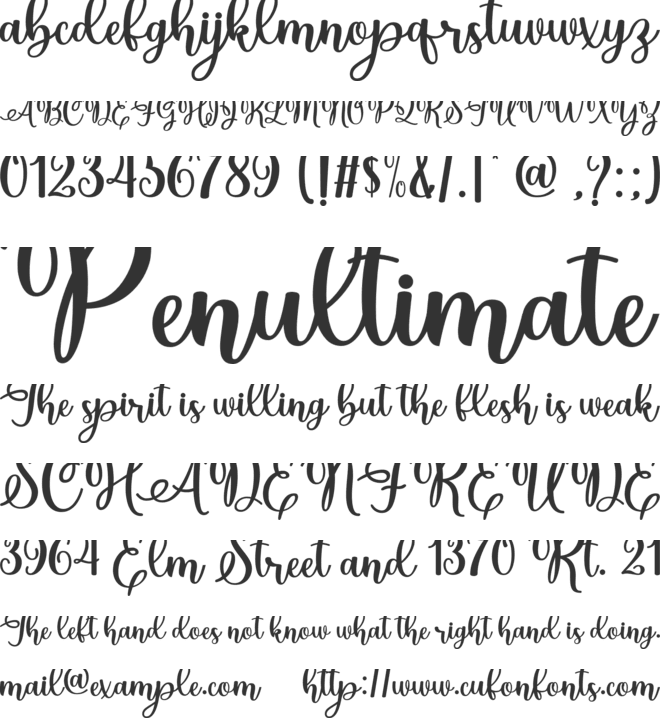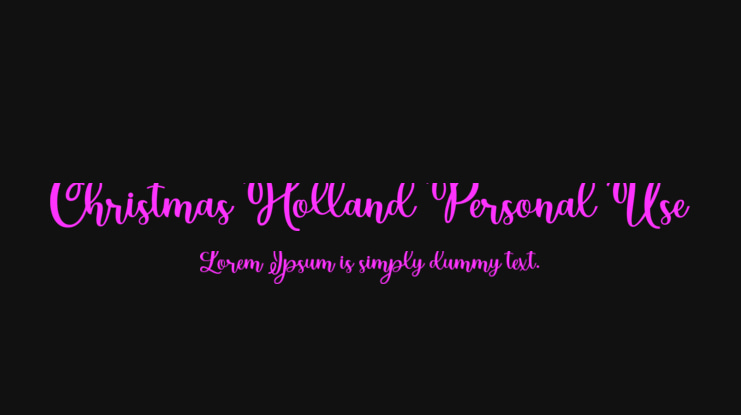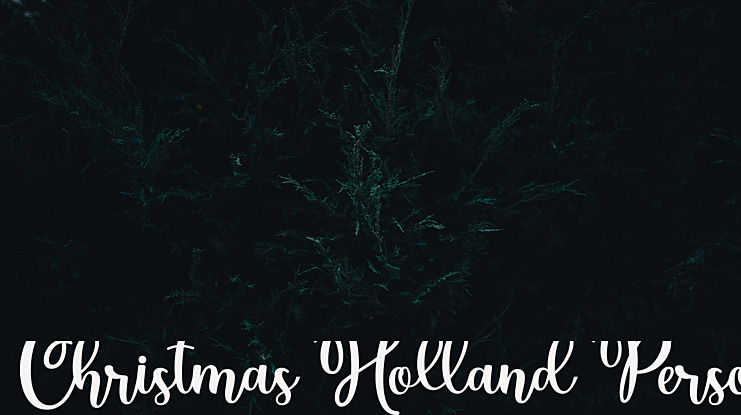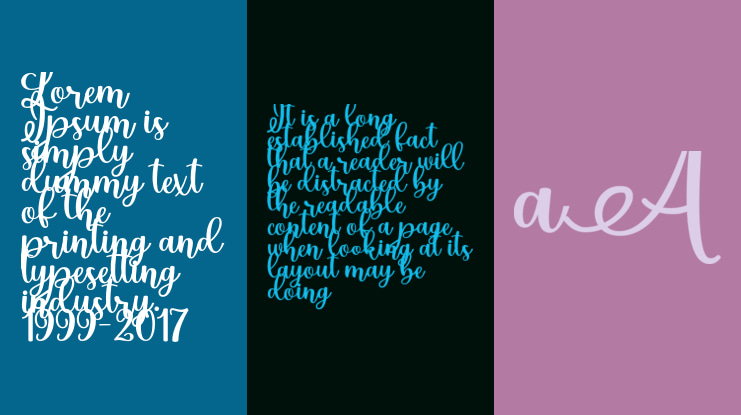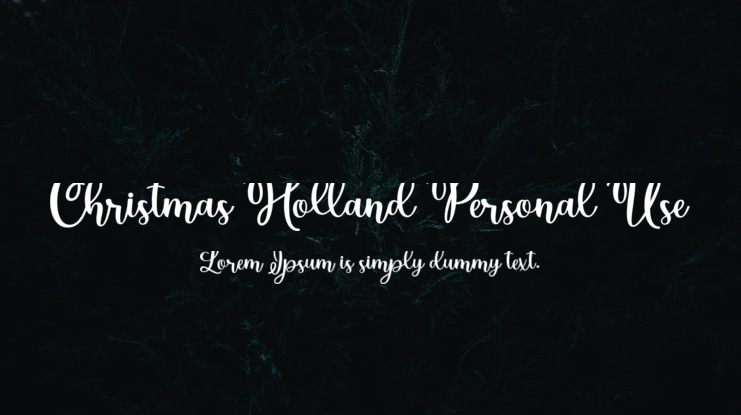
Christmas Holland Personal Use Font
Christmas Holland is a beautiful and romantic handwritten font. It looks amazing on thank you cards, quotes, wedding invitations, greeting cards, business cards, logos and any other design that requires a touch of handwriting.
Christmas Holland Personal Use font preview